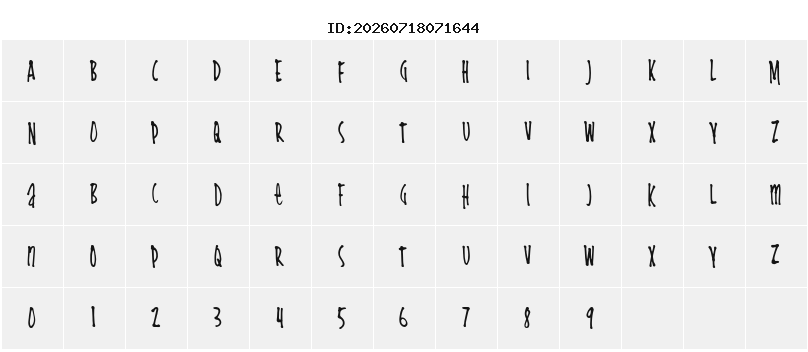
Cheapskate Preview
• Font Name: Cheapskate
• Full Font Name: Cheapskate
About Cheapskate.ttf
Cheapskate.ttf is a modern, elegant sans-serif font designed for ultimate readability and visual harmony. Perfect for branding, headlines, web design, and print materials.